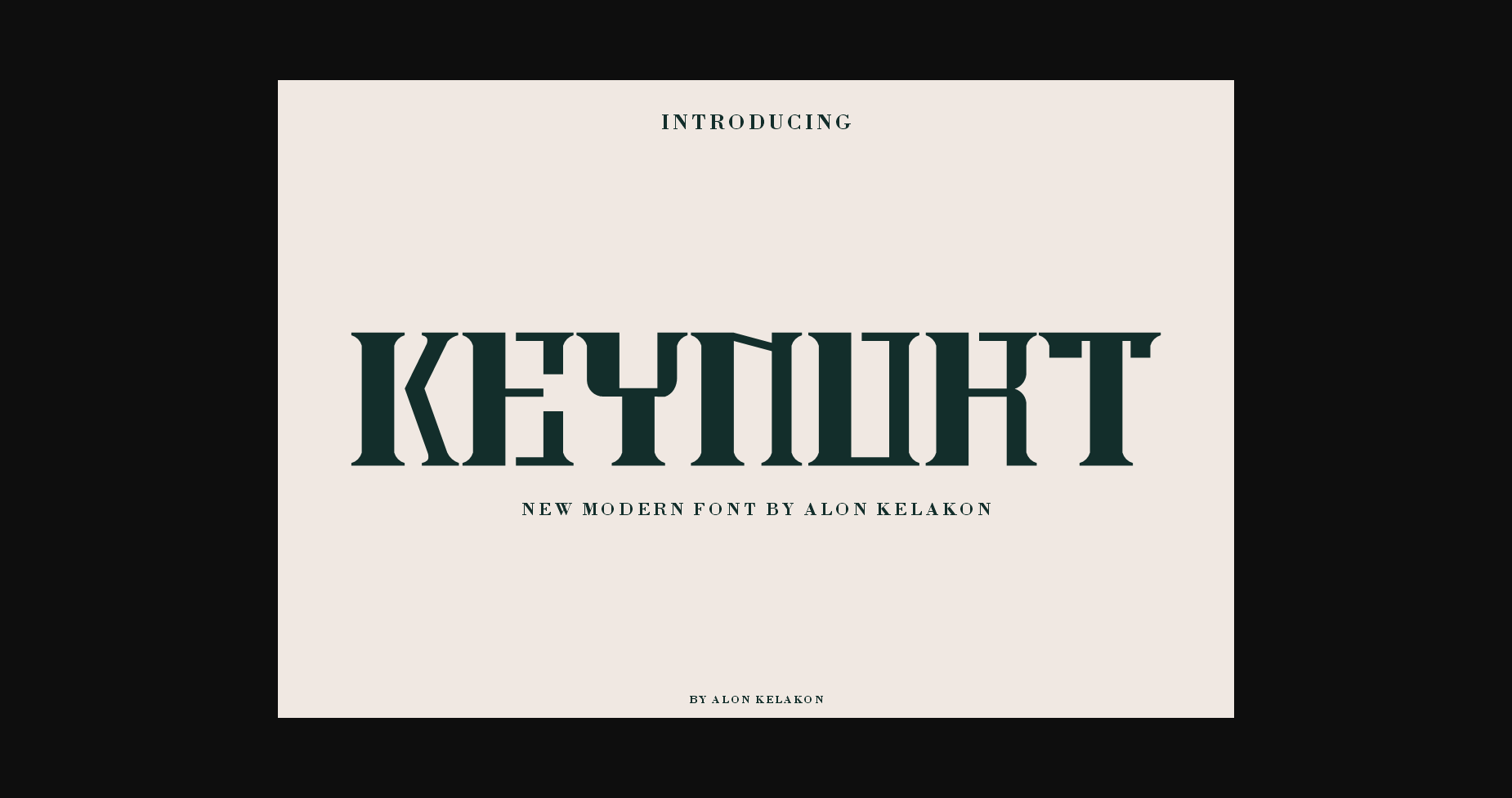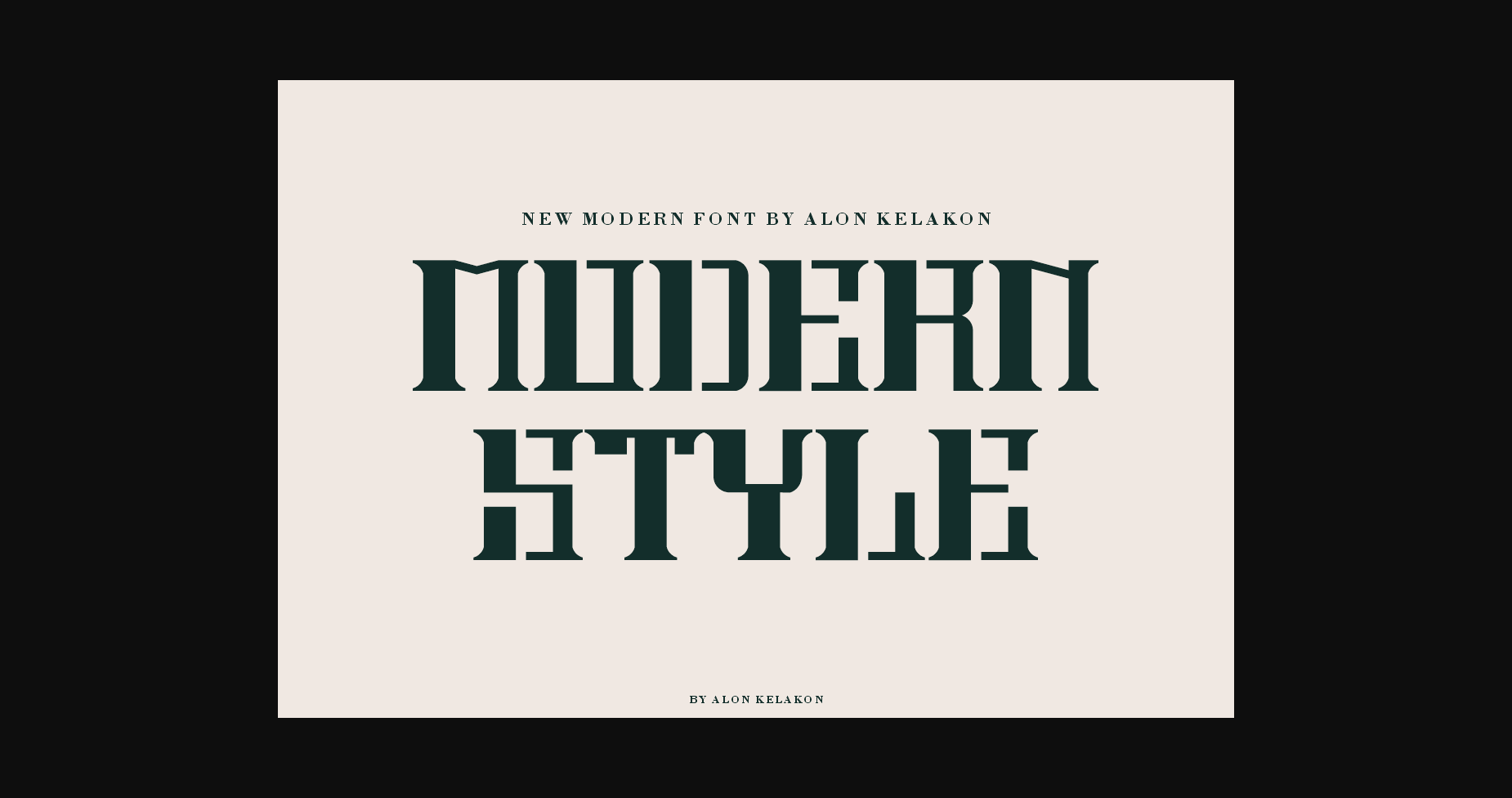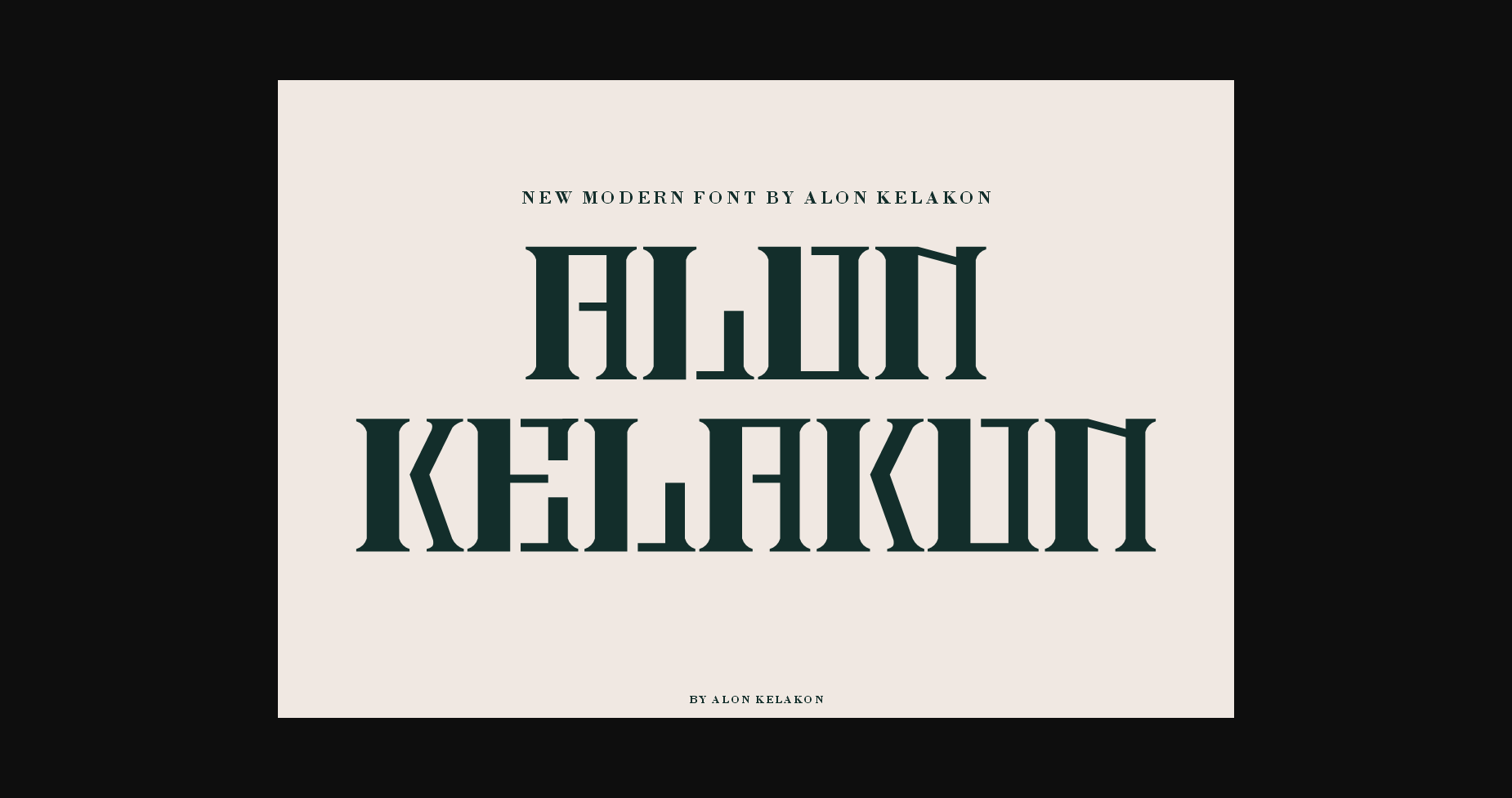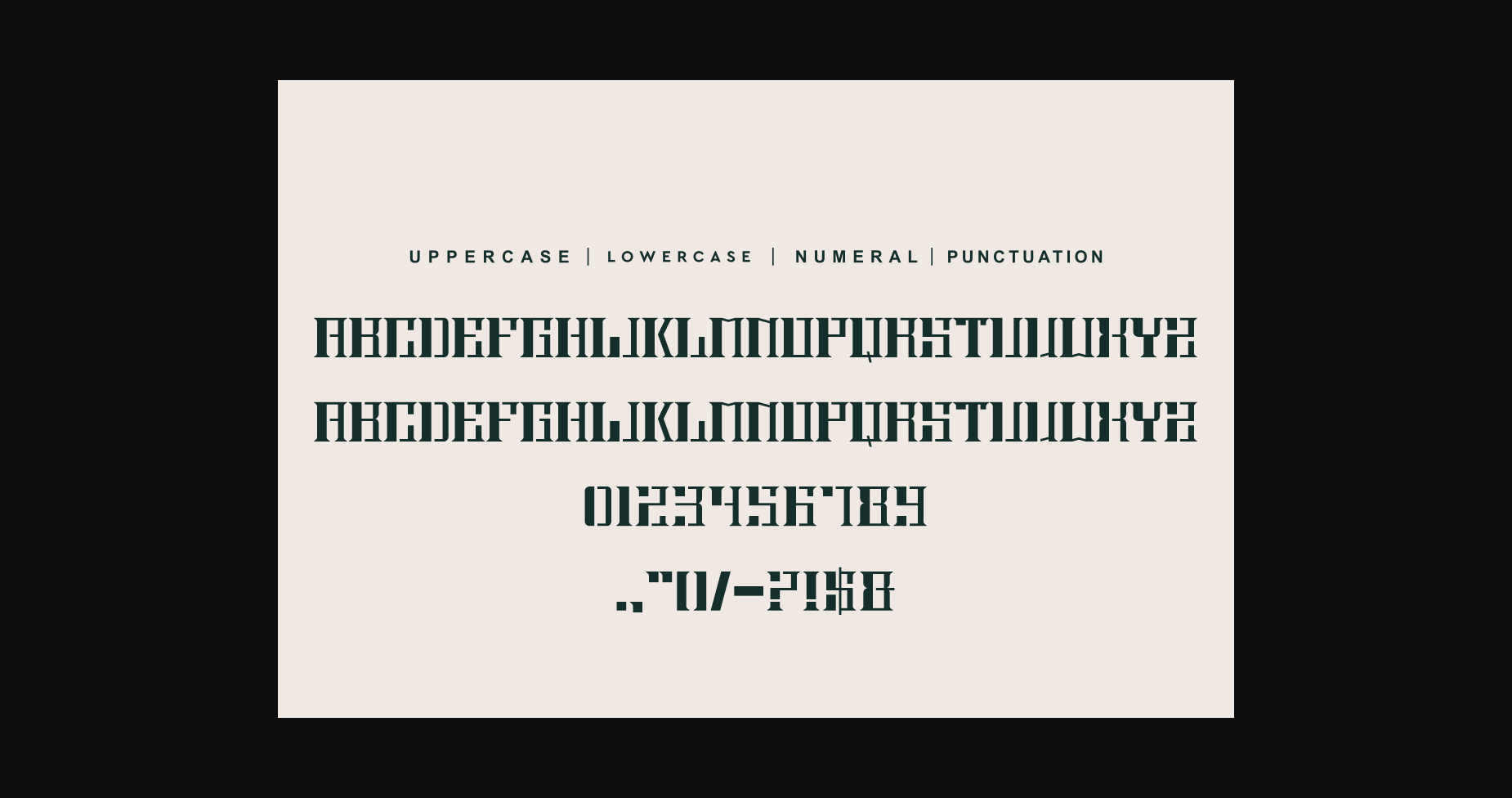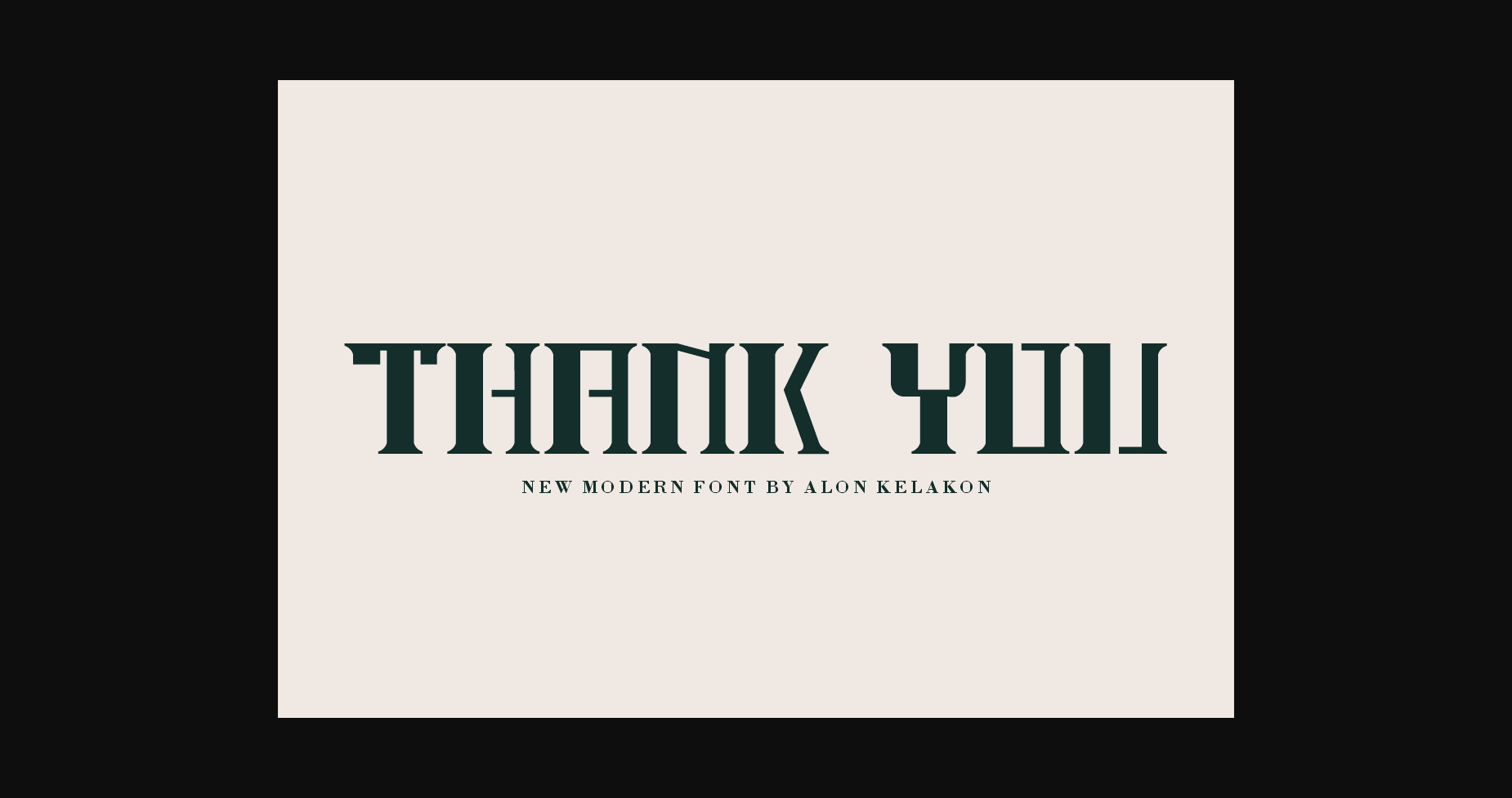
Keynort Font
About Keynort Font
Keynort Font is unique. Ready to use for your design like labeling, clothing, movie screen, poster, movie title, gigs, album covers, logos, and much more.